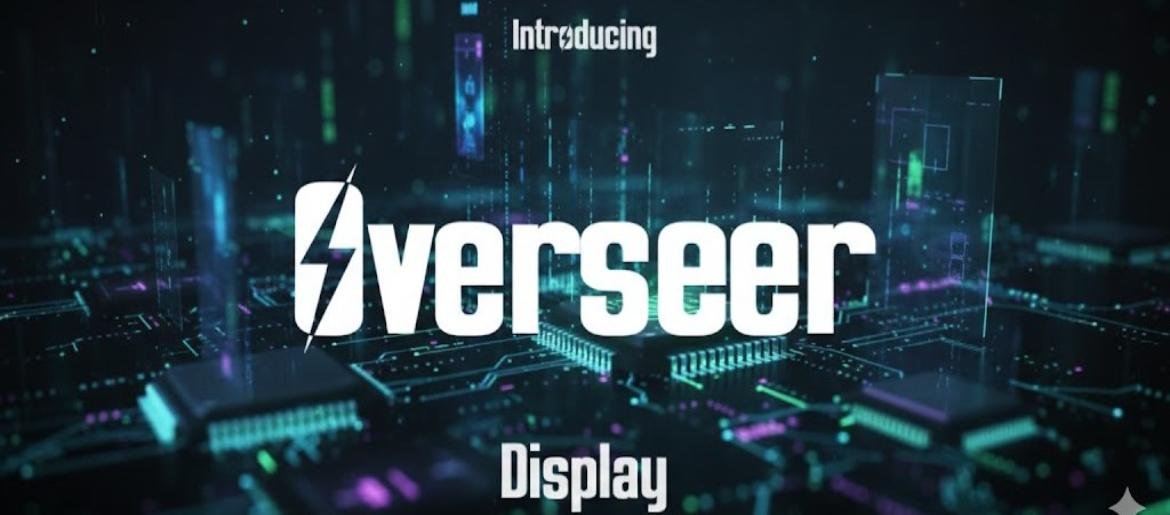
Overseer Font by Pixel Sagas is a futuristic font whose clean geometry and commanding letterforms communicate authority without relying on brute weight alone. It carries the visual language of digital systems and advanced technology — precise, structured, and unmistakably intentional.
Game interfaces, sci-fi branding, tech logos, poster headlines, and any visual project that needs to feel forward-looking and professionally composed will find Overseer a highly capable and flexible tool. Free for personal use.